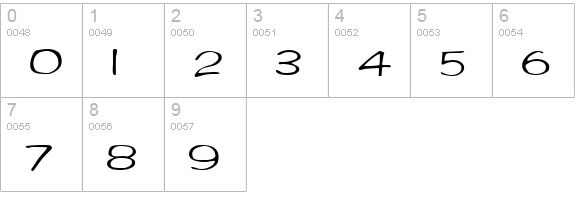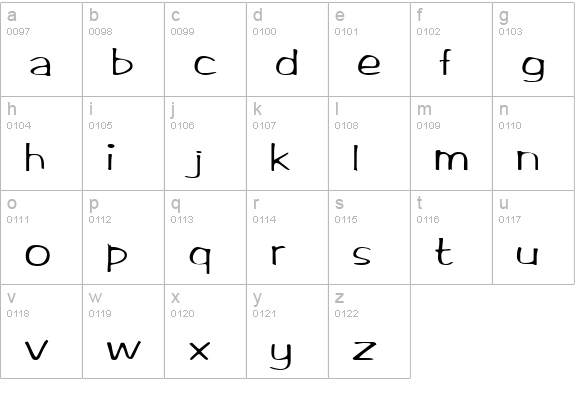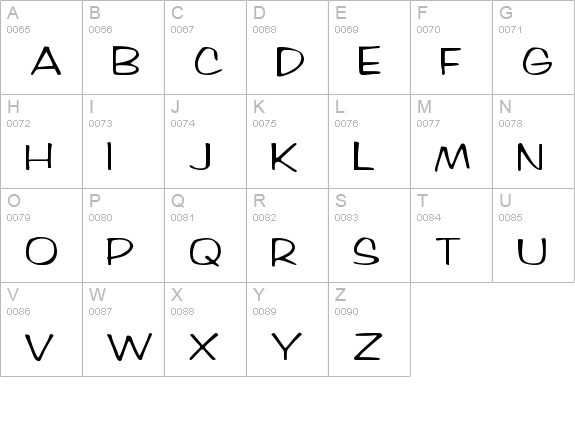
Ticard Regular Font Details
Ticard Regular is the standard, neutral variant in the Ticard typeface family \xE2\x80\x94 well suited to general body text, paragraphs, and standard typographic work.
Ticard Regular is a versatile and elegant font that is perfect for a wide range of design projects. With its clean lines and classic letterforms, this font exudes a sense of sophistication and professionalism. Whether you're designing a logo, creating marketing materials, or working on a branding project, Ticard Regular will make your text stand out with its timeless appeal. One of the best things about Ticard Regular is that it is completely free to download at FontsMarket.com. You don't have to worry about any licensing fees or restrictions – simply visit FontsMarket.com, search for Ticard Regular, and start using it in your designs. This font is freely available for personal and commercial use, making it a valuable resource for designers of all levels. Ticard Regular offers a wide range of characters and glyphs, allowing you to create beautiful and unique typography. Its legibility and readability make it suitable for both print and digital designs, ensuring that your message is effectively communicated to your audience. From headlines to body text, Ticard Regular delivers a clean and professional look that will elevate your designs to the next level. With its timeless appeal and accessibility, Ticard Regular is a must-have font in every designer's toolkit. Whether you're a seasoned professional or just starting out, this font will add a touch of elegance and sophistication to your projects. Download Ticard Regular for free today at FontsMarket.com and unlock endless possibilities for your design endeavors.